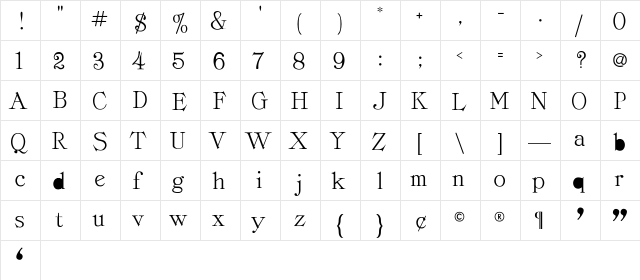
PCCordellaRoman Regular
Design Context for PCCordellaRoman Typeface
PCCordellaRoman takes a measured approach to typography — its balanced proportions and neutral character make it a reliable workhorse for both digital and print work.